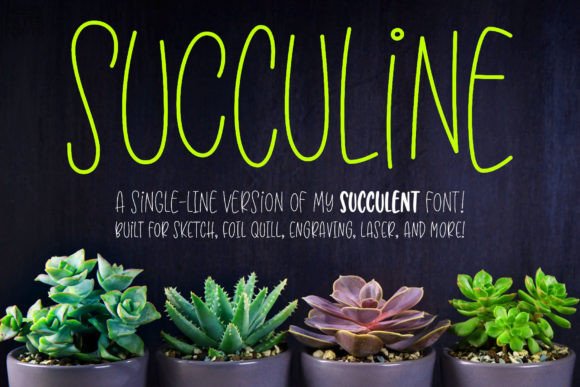
Looking for a fun and bouncy script font that works with your laser engraving system, Cricut and Silhouette sketch pens, foil quill, embossing, and infusible ink? Look no further than SuccuLine! Created by GeekMissy, this font is the single-line version of the popular Succulent font. With all characters OpenType coded and PUA-encoded, SuccuLine works seamlessly in programs like Adobe Illustrator, CorelDRAW, Affinity Designer, Inkscape, and more!
Please note that this font is not meant for word processing, printing, or cutting. Instead, it's designed for use with a stylus or nib that draws letters with a single line. This font comes in both a single-line version and a hairline version, and different software programs will use different formats. Don't worry if it looks weird in the font previewer; that's totally normal!